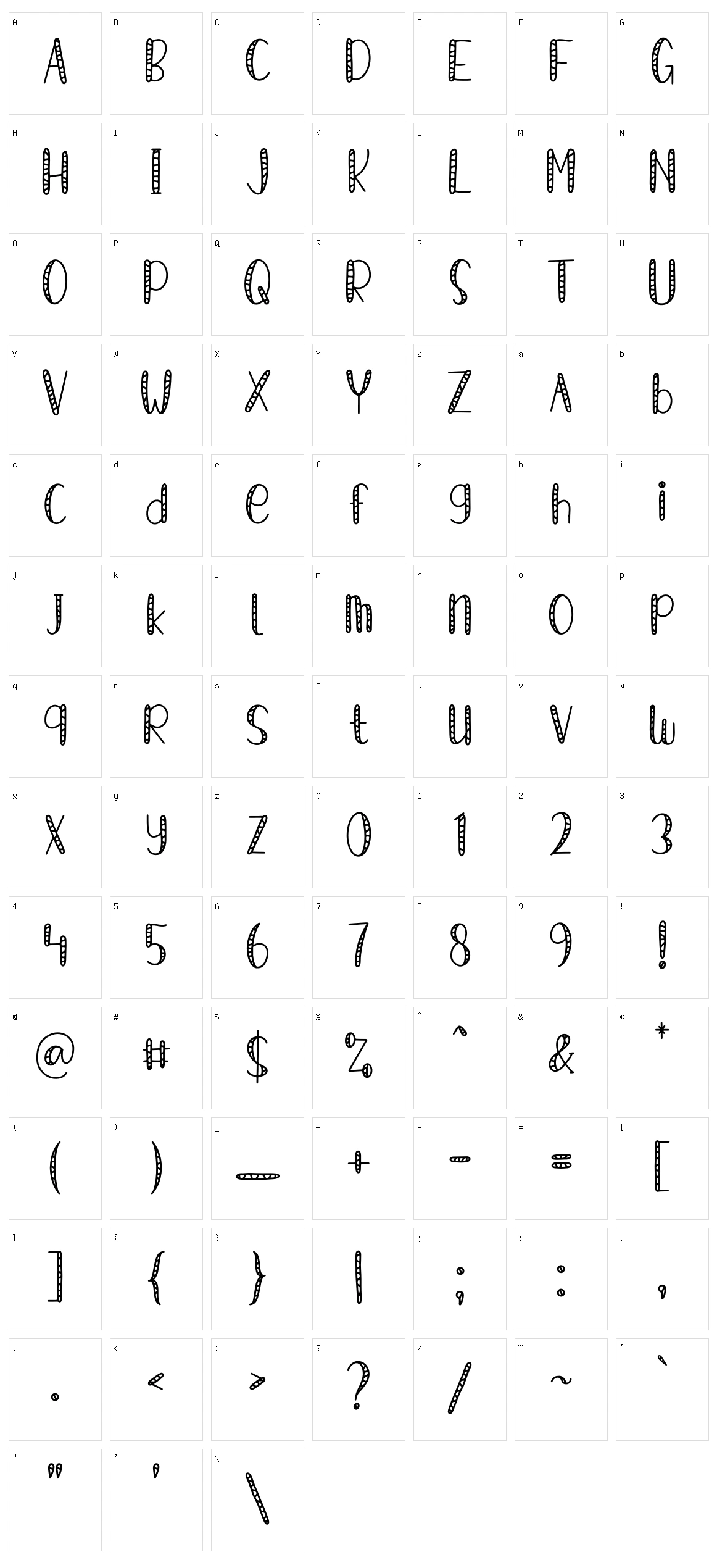
The free font Candy Dino is carefully designed by Perspectype Studio - Letterena.com, showcasing a thoughtful balance of creativity and usability and falls under the Cartoon font style. When you download the ZIP file, it contains only 80.41 KB of font files, making it lightweight and quick to download. Please review the license details below to understand permitted usage and distribution rights. If license information is not available, we recommend using this font for personal projects only or contacting the author directly for commercial usage permissions.